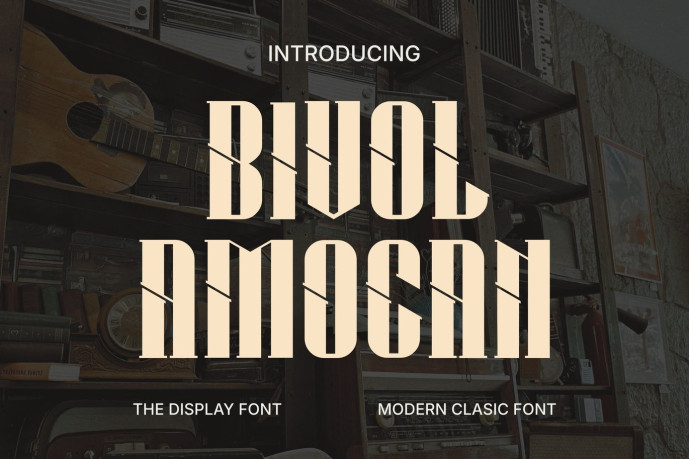
BivolAmocan Font
Designer: Ahmad Baqi Firdaus
Carefully crafted with attention to detail, this typeface combines contemporary style with excellent readability, making it suitable for both personal and commercial projects. Whether you’re building a strong brand identity or creating eye-catching promotional content, this font helps your designs stand out effortlessly.